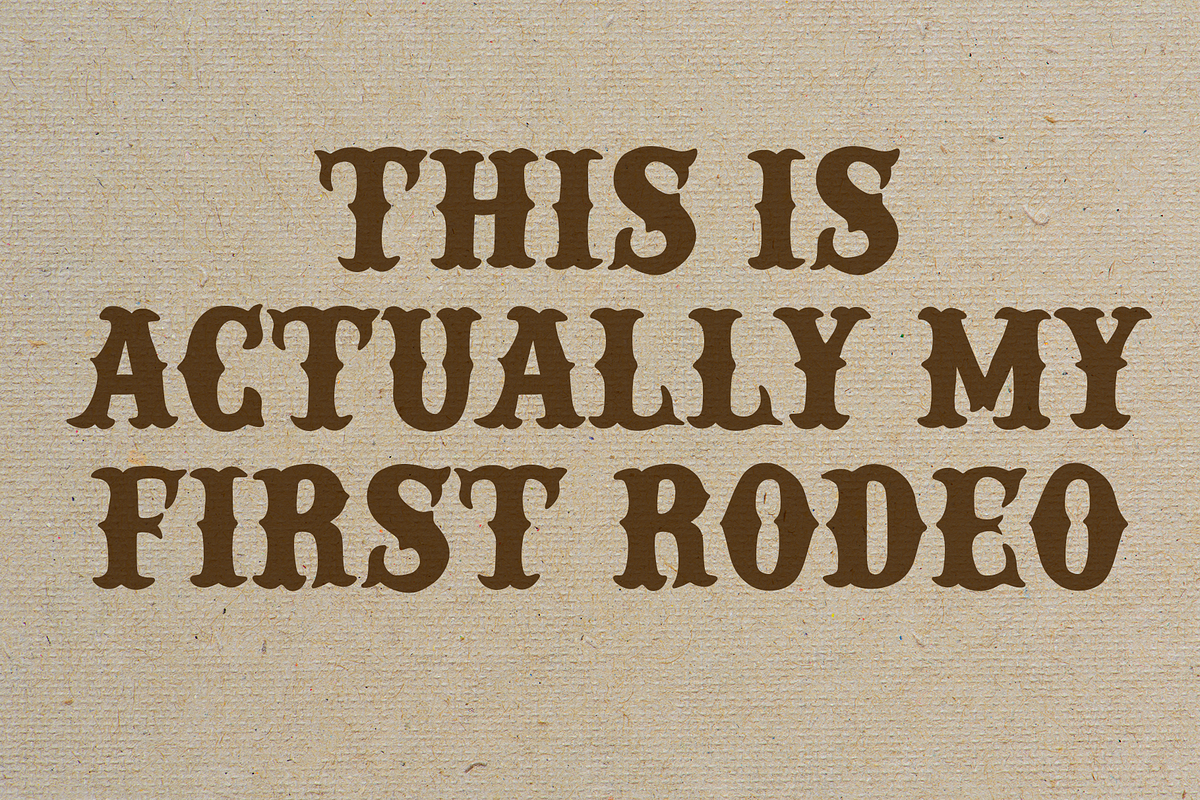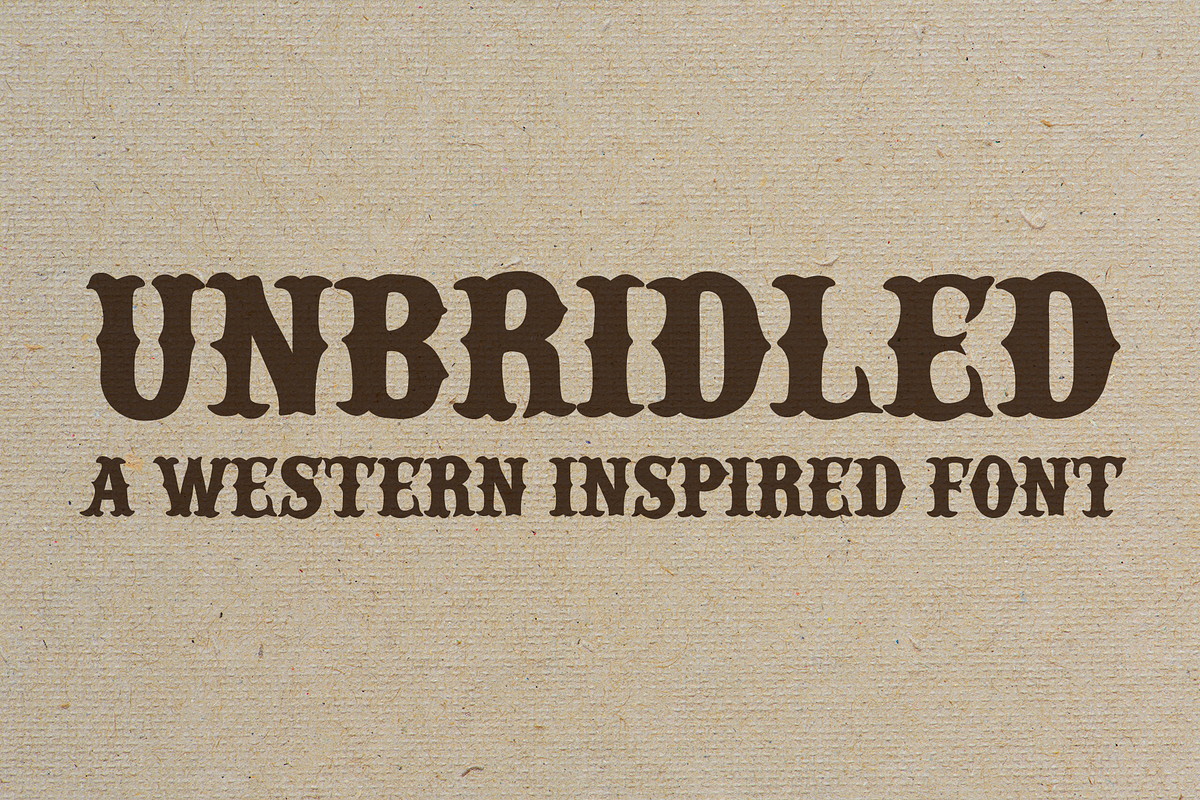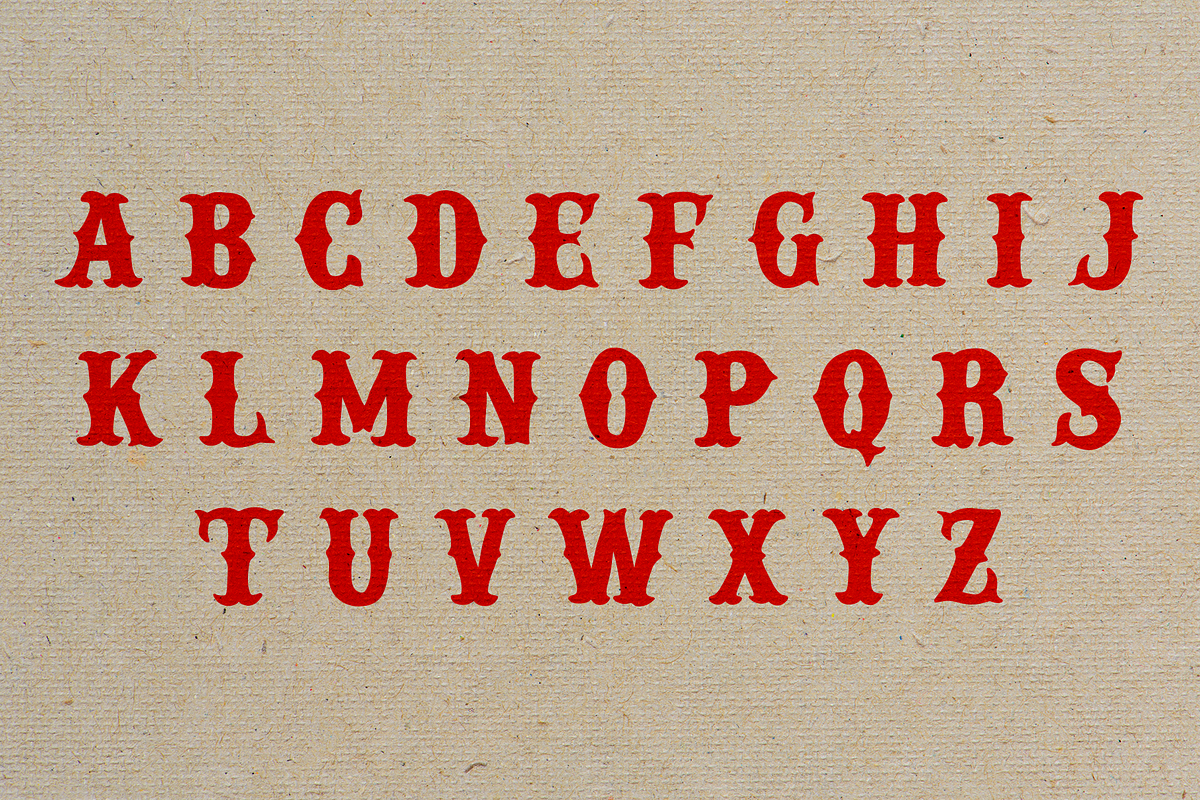
Unbridled - A Western Font
Ride into the untamed frontier of design with Unbridled, a bold and charismatic handwritten western font that exudes raw authenticity. Perfectly imperfect, this font captures the rugged charm of the Old West while adding a modern, personal touch.
Whether you're branding a cowboy-inspired collection, designing event posters, or creating social media graphics with a rustic flair, Unbridled brings a sense of freedom and individuality to every project. Its hand-drawn strokes and organic feel make it stand out while keeping your designs approachable and unique.
Vintage-inspired branding Western-themed events Bold statement pieces Creative typography projects Add a dose of grit and personality to your next project with Unbridled—because great design deserves to be wild and free.
Includes full uppercase alphabet.